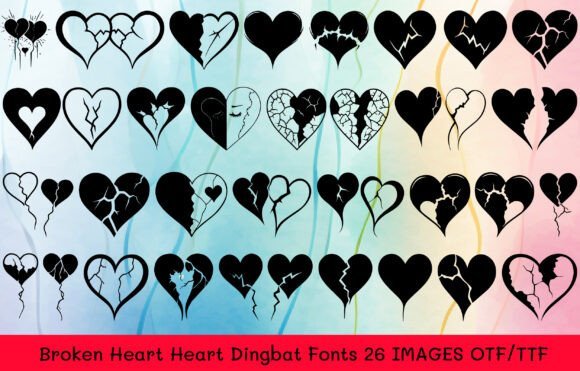
The Perfect Symbol for a Bittersweet Creation
Have you ever stared at a blank page, a blank canvas, or a blank screen, and suddenly, the perfect symbol strikes you? For many creatives, this moment of inspiration can be a game-changer. For me, it was when I stumbled upon the Broken Heart Heart Font – a digital product that features 26 unique broken heart-inspired designs, each corresponding to a letter from A to Z.
Broken Heart Heart Font is more than just a quirky font; it’s a powerful tool for designers looking to add a touch of drama, romance, or whimsy to their projects. With its broken heart-inspired designs, this font is perfect for creative designs, DIY crafts, and dramatic artwork. Whether you’re a seasoned designer or a crafty enthusiast, Broken Heart Heart Font is a valuable addition to your digital toolkit.
Broken Heart Heart Font Key Features
- Unique Characteristics: The Broken Heart Heart Font features a unique blend of modern and distressed elements, with intricate details and textures that give it a one-of-a-kind look.
Broken Heart Heart Font Review
Overall, I think the Broken Heart Heart Font has a lot going for it, but also some limitations that might hold it back.
- Unique design: The font’s broken heart shape is a great conversation starter and can add a touch of whimsy to any project.
- Emotional connection: The font’s theme is well-executed and can help designers convey a sense of sadness or longing in their work.
- Customization options: The font offers various customization options, such as color and size changes, which can be useful for designers who want to tailor their project’s look and feel.
- Limited legibility: The font’s intricate design can make it difficult to read, especially in smaller sizes or when used for large blocks of text.
- Overuse potential: The font’s unique design might be too attention-seeking and could be overused in projects, losing its impact and meaning.
In conclusion, the Broken Heart Heart Font is a great choice for designers who want to add a touch of emotion and whimsy to their work. However, it’s essential to use it judiciously and consider its limitations to ensure the best results.
Combine the Broken Heart Heart Font with other fonts to add contrast and interest.
Use it to create eye-catching headings and titles.
Valentine’s Day and love-themed designs.
Heartfelt messages and quotes.
Emotional and sentimental projects.